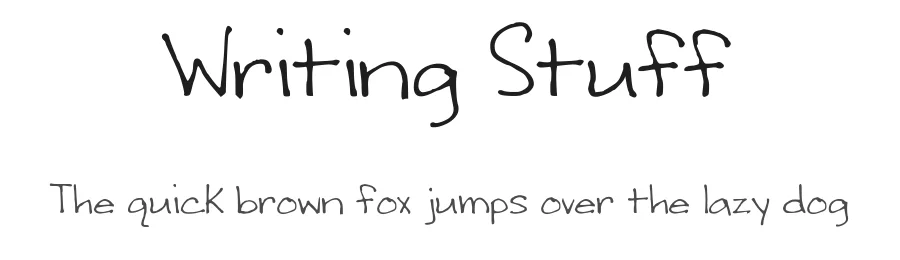
About A Sensible Armadillo Font
A Sensible Armadillo is a script & handwritten font designed by Brittney Murphy Design. It includes 242 glyphs, a regular weight, TTF (TrueType) format, and 186 languages. A Sensible Armadillo is free to download; check the license details on this page before commercial use. Script & handwritten fonts like A Sensible Armadillo work best for wedding invitations, greeting cards, signatures, and elegant branding.
A Sensible Armadillo Font is a script font that shines as a display or heading face. Pair it with a clean sans-serif or serif font for body text β the contrast creates a clear hierarchy while the two styles stay balanced and easy to read.